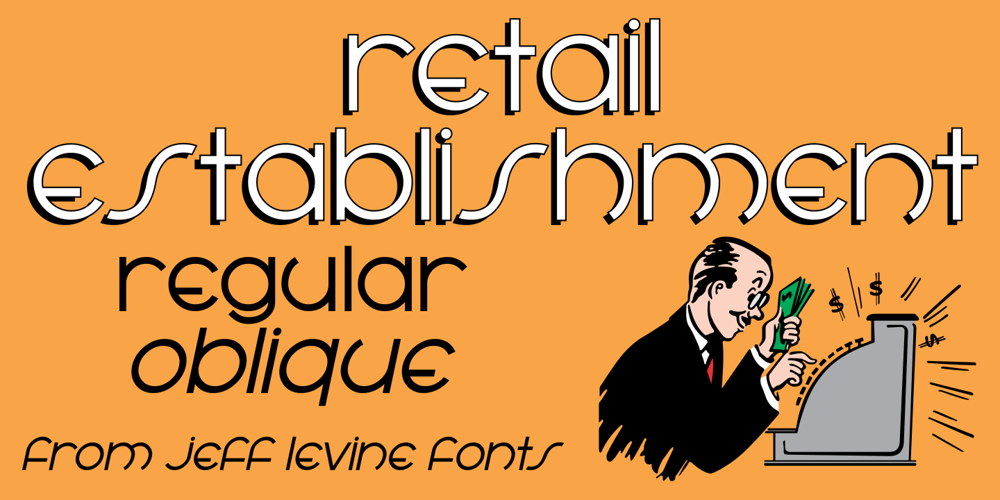
Retail Establishment JNL Font Family was designed by Jeff Levine and published by Jeff Levine. Retail Establishment JNL contains 2 styles and family package options. The 1935 catalog for Vitrolite (a brand of pigmented structural glass) featured artist renderings of how the glass could be applied to business exteriors.One of the lettering styles used in these examples was an Art Deco lower case. This design has been turned into a digital typeface called Retail Establishment JNL and is available in both regular and oblique versions.